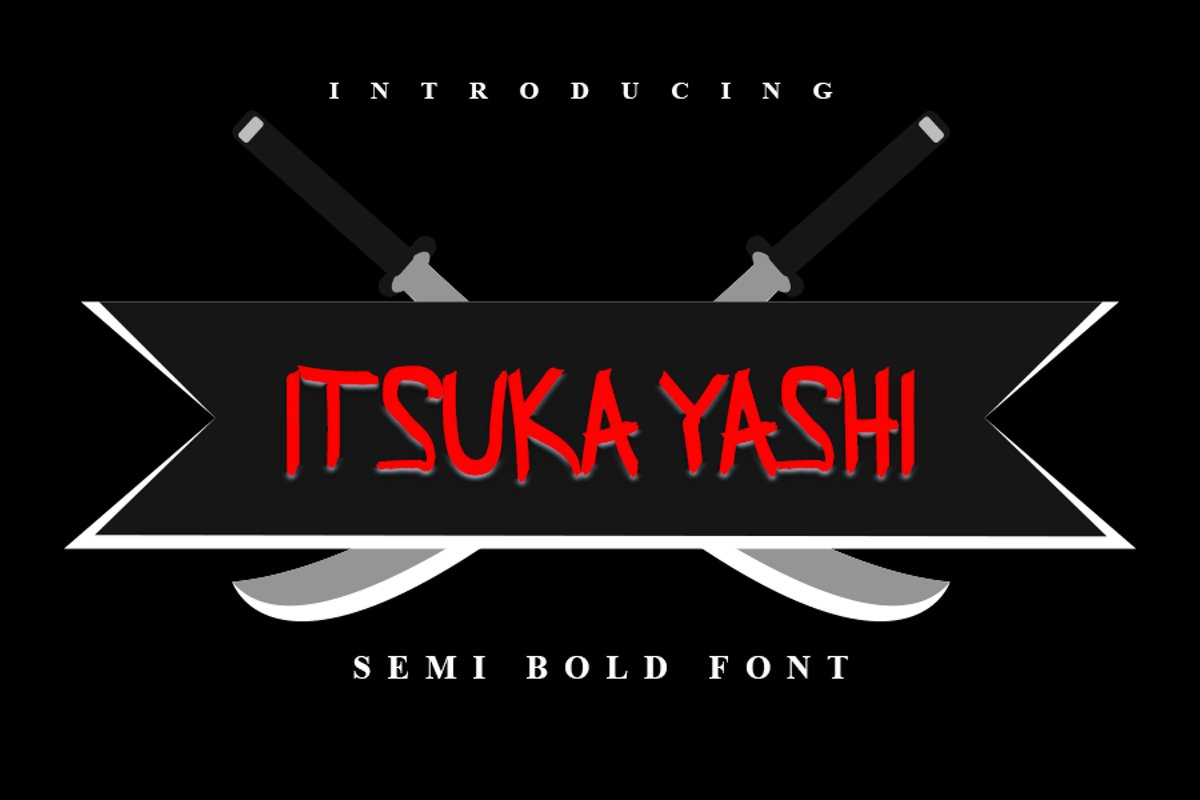
Itsuka Yashi
ITSUKA YASHI
Itsuka Yashi is a unique and attractive modern handwritten font. This font will look outstanding in any context, whether it’s being used on busy backgrounds or as a standalone headline!